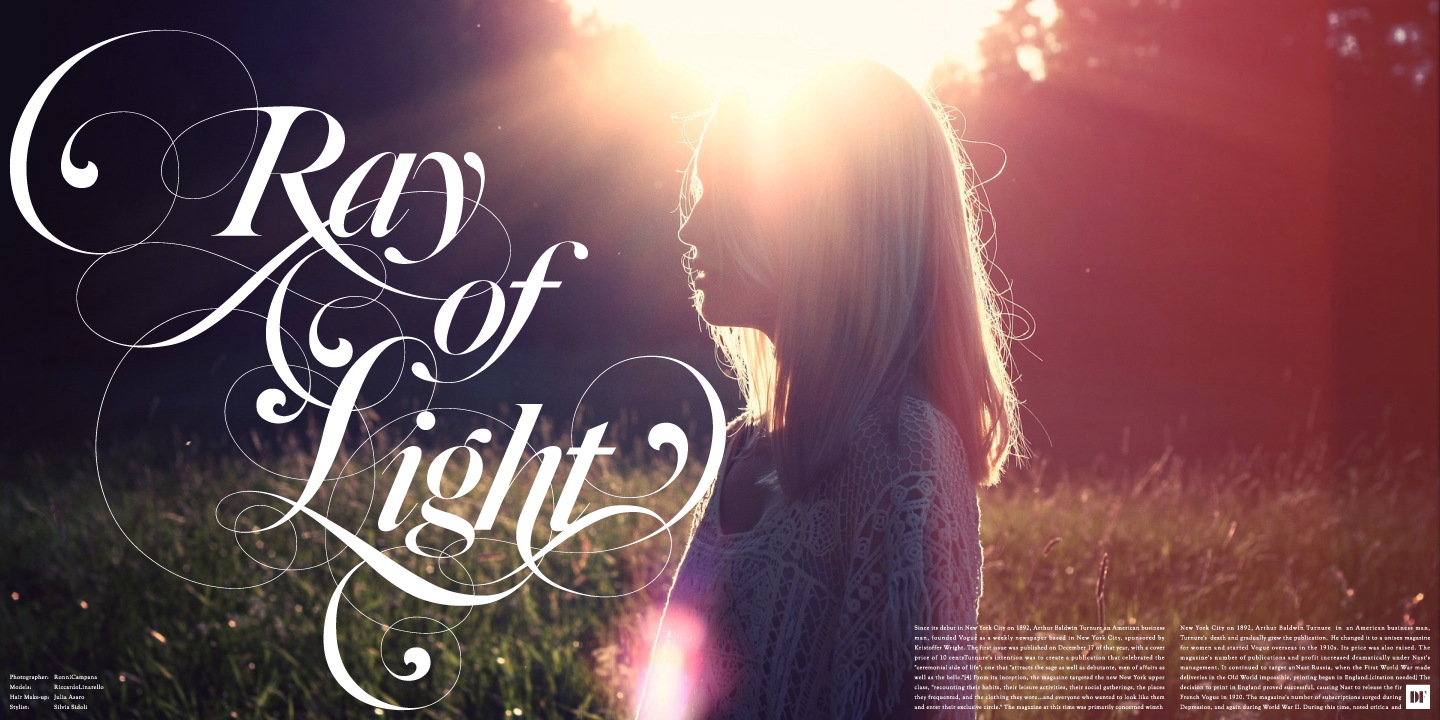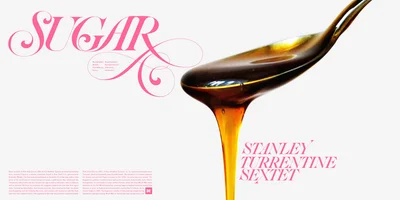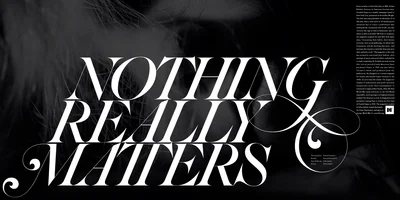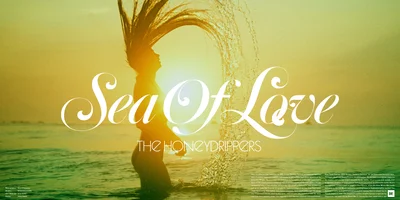
Ivy Mode vs Reckless
Ivy Mode and Reckless are both serif typefaces sharing a display foundation. Where Ivy Mode leans fashion, elegant, Reckless brings bold, editorial. Compare which suits your Fashion project.
Ivy Mode
High Contrast
Elegant
DisplayFashion
Reckless
High Contrast
Bold
DisplayEditorial
Ivy Mode
Reckless
Fashion
Typography for fashion brands, style publications, and luxury apparel. Fashion f...
Display & Headlines
Luxury
Headlines
Recommended: Ivy Mode
- fashion, elegant design character
- Suited for Luxury
Consider: Reckless
- bold, editorial design character
- Suited for Headlines